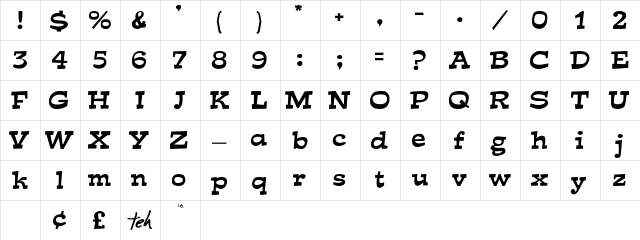
Mirisch Normal
Design Context for Mirisch Typeface
Mirisch is a composed and adaptable typeface that performs quietly and consistently across a wide range of design contexts.
Pro Tip: Pair Mirisch with a font of contrasting weight or personality to build a more expressive typographic hierarchy.